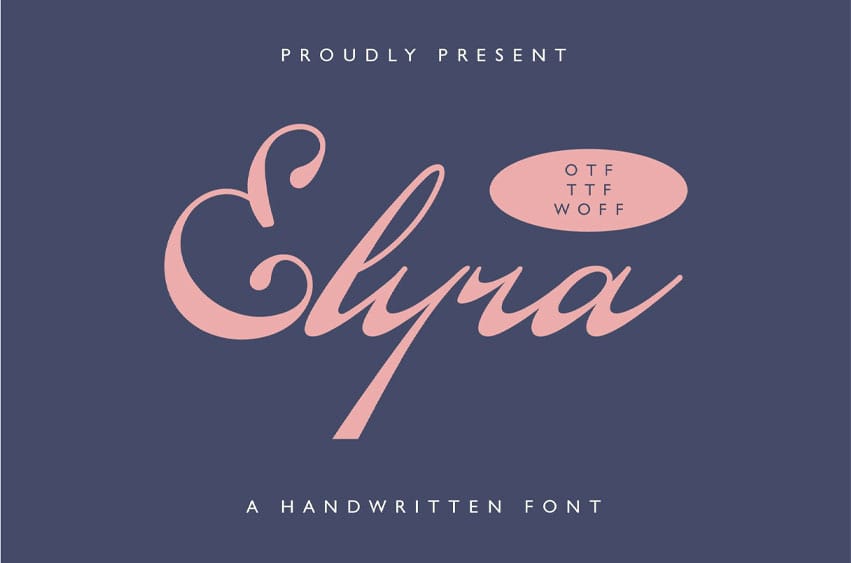
Elyra Font is a sophisticated script font with elegant handwritten characteristics, designed to evoke a sense of fluidity and personal touch. Its graceful curves and smooth transitions between strokes create a refined yet approachable look.
Ideal for branding, invitations, and upscale design projects, Elyra captures the beauty of handwritten artistry while maintaining a modern and stylish appearance.